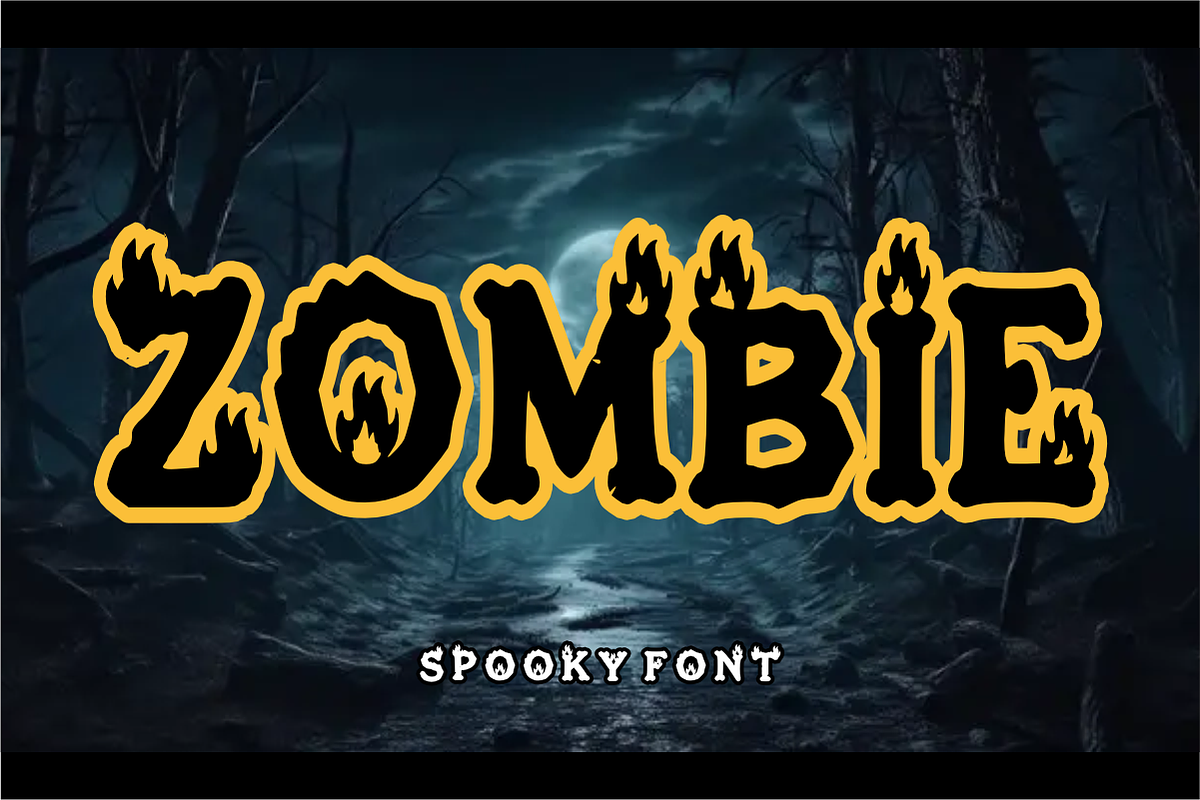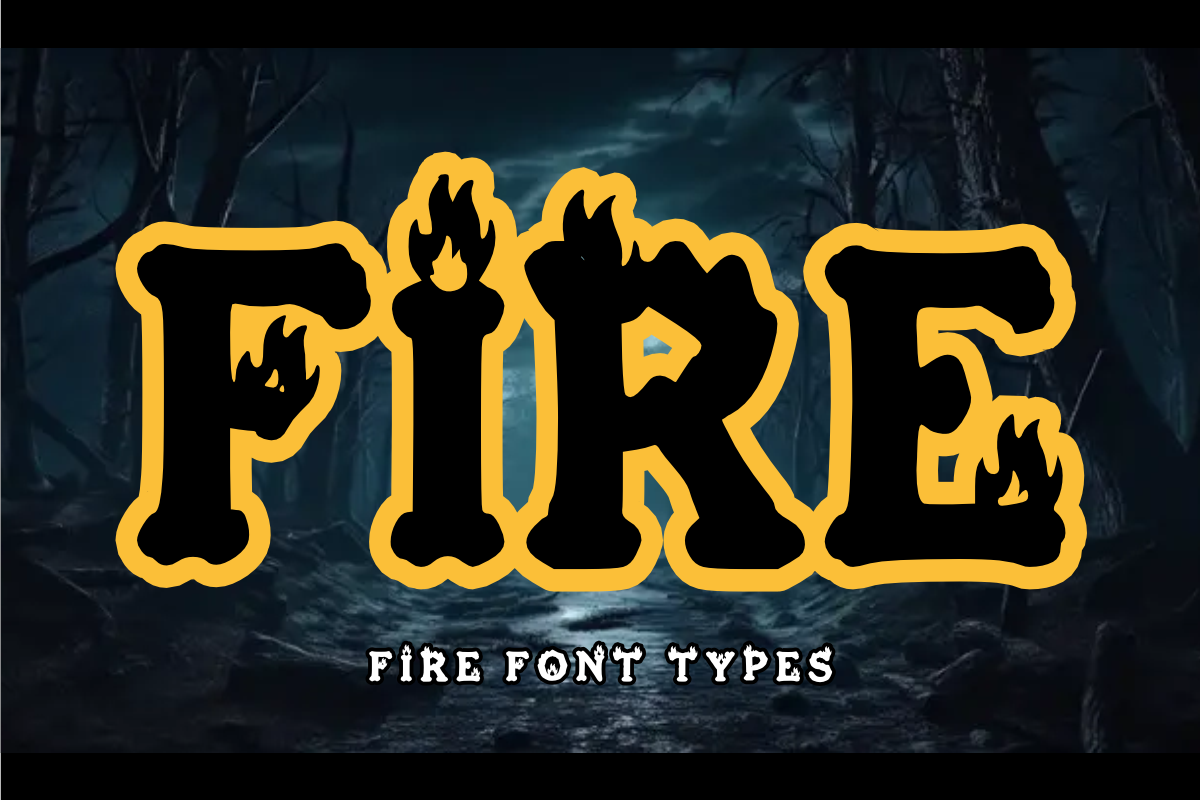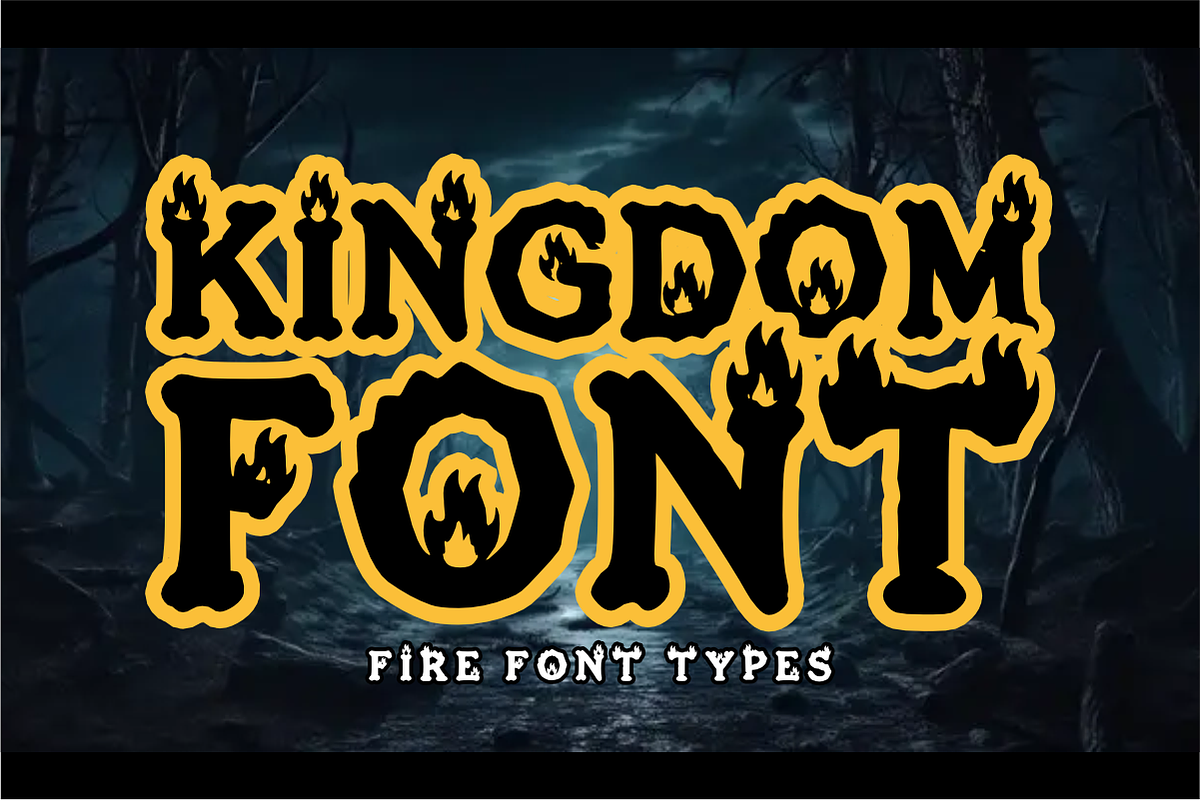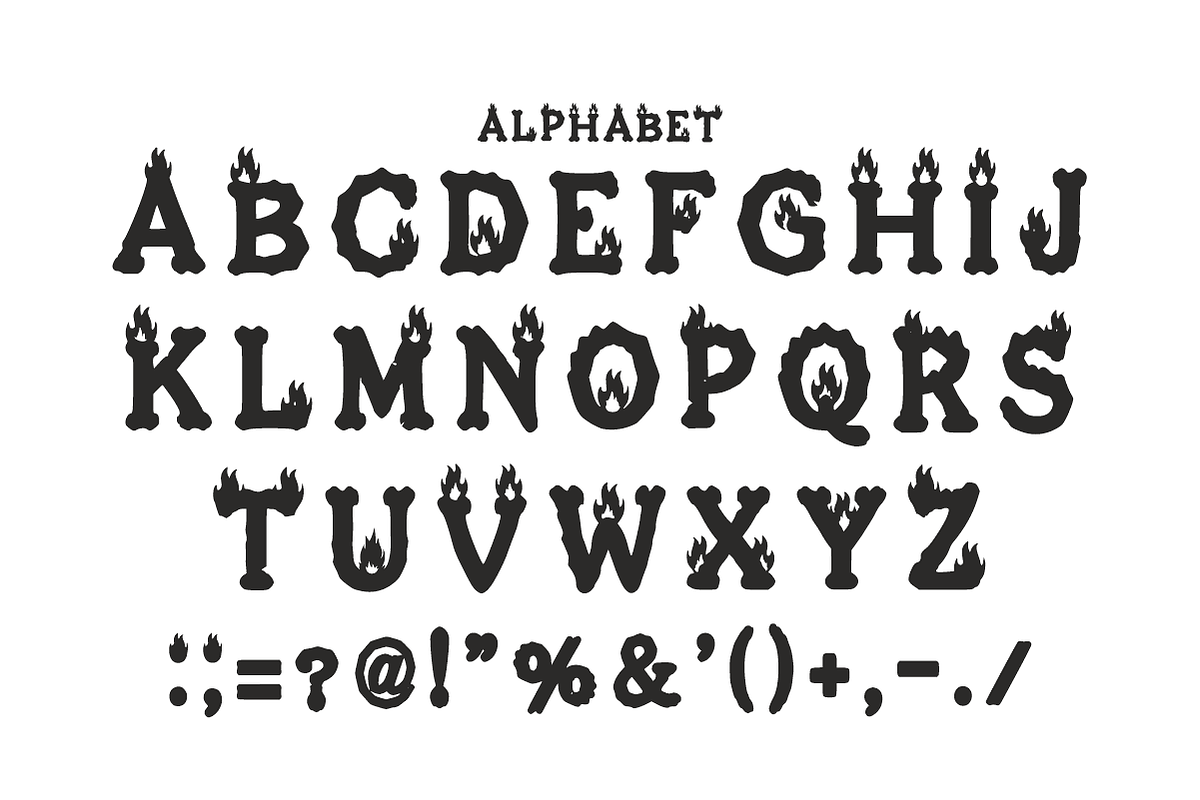
KINGDOM - Bold Fire Fantasy Font
Ignite your creative designs with the blazing energy of KINGDOM! Specially engineered as a high-impact "Fire Font Type," this bold display typeface features chunky, adventurous letterforms embedded with playful flame details and flickering cutouts designed to make your headlines burn bright.
Perfect for dark fantasy branding, gaming graphics, and trend-focused holiday crafting, KINGDOM seamlessly pairs a lighthearted cartoon aesthetic with clean vector precision. It is highly expressive, versatile, and fully optimized for flawless performance across premium digital cutting tools and professional print layouts.
All-Caps Character Set (Chunky uppercase letters with decorative fire patterns)
Numbers & Basic Punctuation (Essential, simple symbols included)
Gaming Logos, Esports Branding, & Streamer Overlays 🎮
Halloween Party Graphics, Spooky Themes, & Bonfire Flyers 🔥
Kids' Adventure Storybooks, Comic Headers, & Toy Packaging 📚
Social Media Graphics, Custom Stickers, & High-Impact Apparel 📱